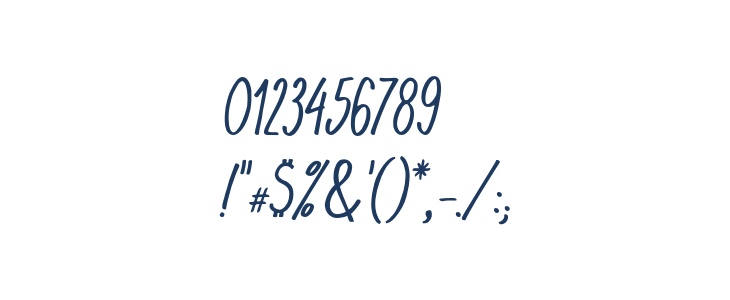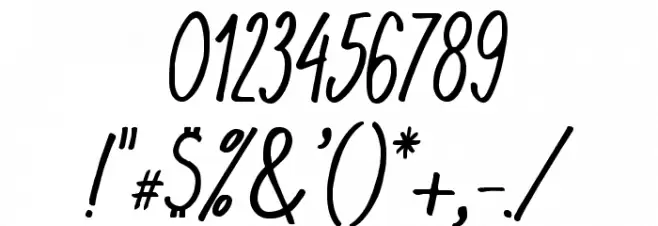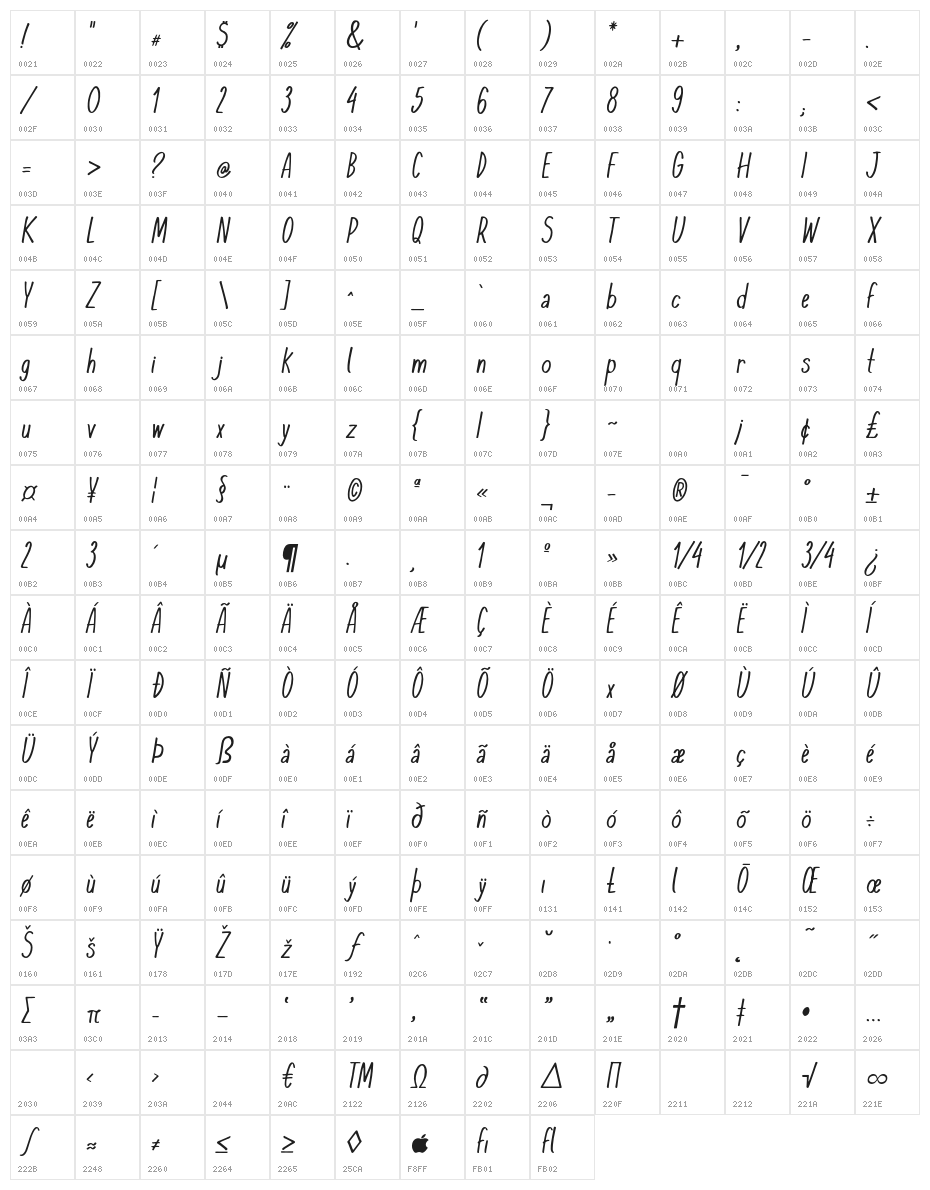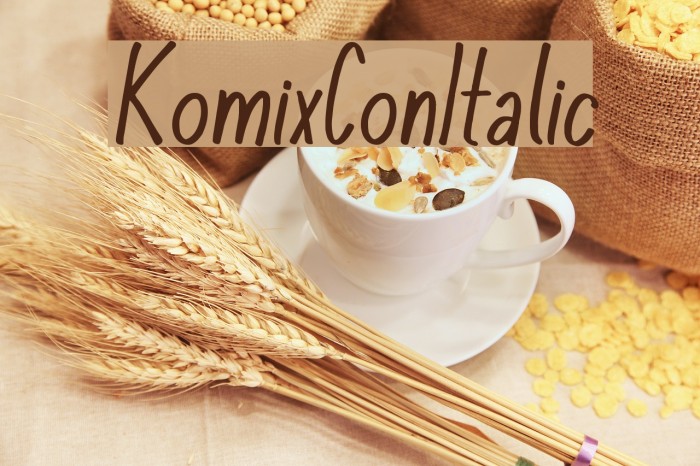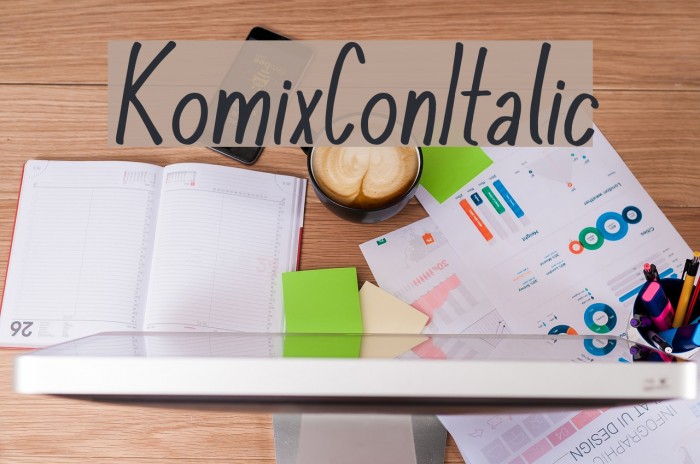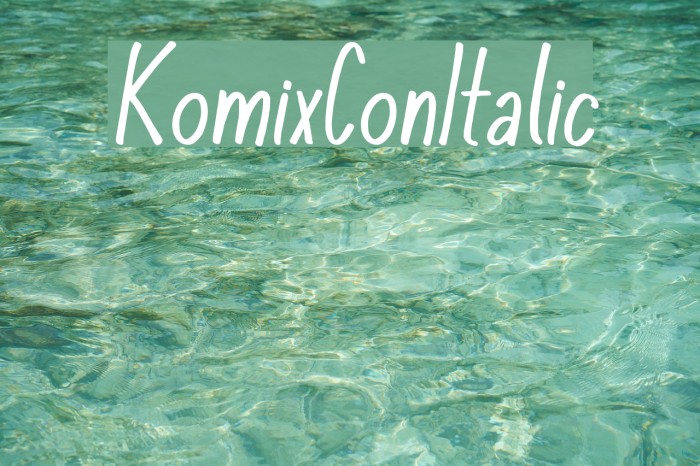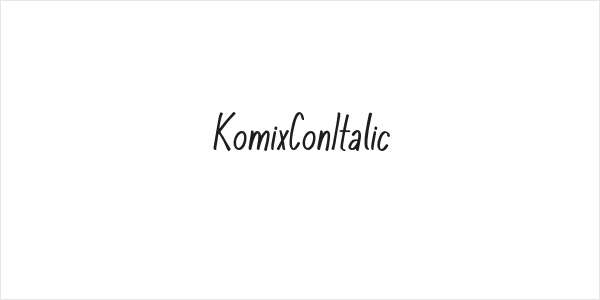
KomixConItalic Font
KomixConItalic Description
This playful and dynamic font features a handwritten style with a slight slant, giving it an italic appearance. The characters are elongated and have a casual, informal feel, reminiscent of comic book lettering. The strokes are consistent in width, providing a uniform look across all characters. The uppercase letters are bold and prominent, while the lowercase letters maintain a friendly and approachable vibe. Numbers and special characters are designed to match the overall style, ensuring cohesion throughout. This font is perfect for projects that require a fun and lively touch.
| Proposed Projects | Ideal for comic books, children's books, playful branding, and casual invitations. |